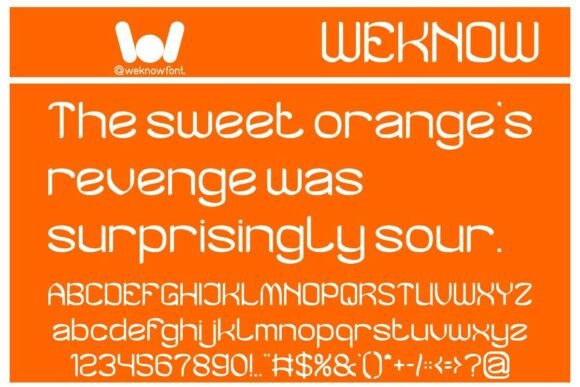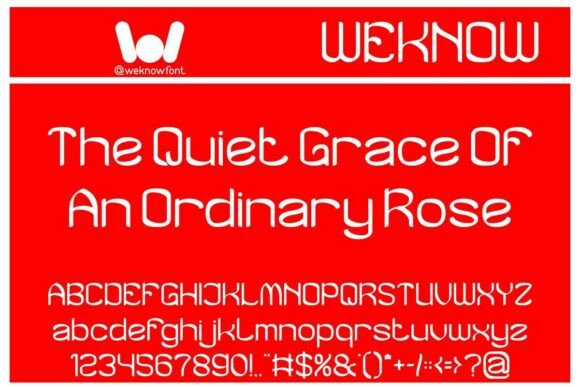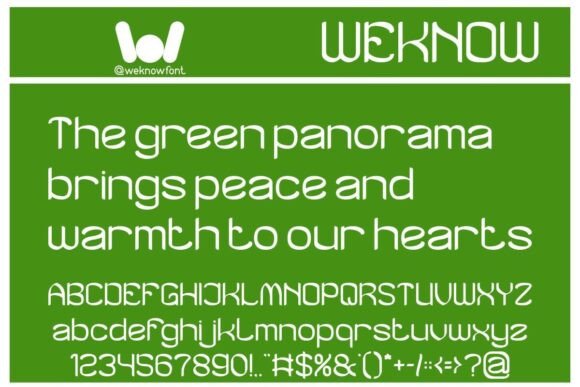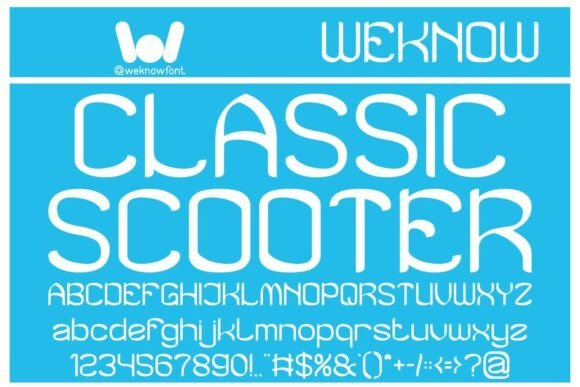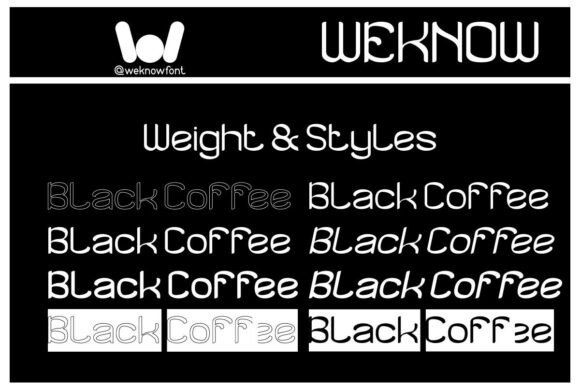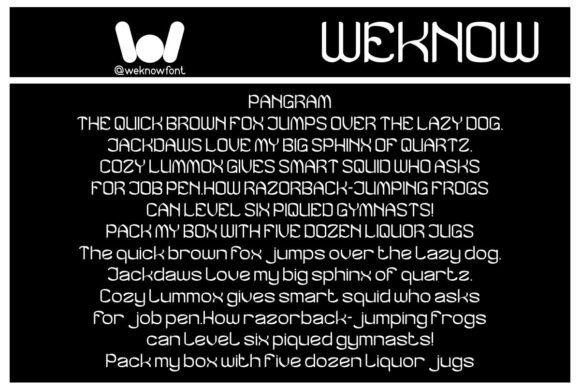
Introducing Black Coffee: The Ultimate Multi-Faceted Monoline Font
Are you tired of using the same old fonts for your designs? Look no further than Black Coffee, a game-changing monoline font that combines playful whimsy with stylish sophistication. This eclectic font is perfect for designers and crafters looking to add a touch of modernity to their work.
A Unique Blend of Geometry and Whimsy
Black Coffee boasts a seamless unison of geometric precision and casual rounded terminals, making it a standout in the world of typography. Its multi-faceted design allows it to adapt to a variety of themes and styles, from trendy Instagram posts to bold posters and graphics. Whether you’re working on a corporate branding project or a personal creative endeavor, Black Coffee is sure to make a statement.
The Perfect Font for Eye-Catching Logos and Headlines
One of the key features of Black Coffee is its unique looped display ergonomics, making it an ideal choice for creating eye-catching logos and defining headlines. The font’s geometric precision and bold lines ensure that your message will stand out, while its playful rounded terminals add a touch of approachability and friendliness.
Black Coffee’s versatility is one of its greatest strengths. This font can effortlessly adapt to a wide range of themes and styles, making it perfect for various design applications. Here are just a few examples of how you can use Black Coffee:
- Instagram and Social Media: Add a trendy vibe to your Instagram posts and stories with Black Coffee’s modern and sleek design.
- Posters and Graphics: Make a bold statement with Black Coffee’s geometric precision and bold lines, perfect for posters, flyers, and other graphic designs.
- Music and Movie Graphics: Add a touch of sophistication and glamour to your music and movie graphics with Black Coffee’s stylish and modern design.
- Magazine Layouts and Book Designs: Bring a touch of modernity to your magazine layouts and book designs with Black Coffee’s clean lines and elegant design.
- Comic Strips and Illustrations: Add a playful and whimsical touch to your comic strips and illustrations with Black Coffee’s rounded terminals and bold lines.
Why Choose Black Coffee?
So why choose Black Coffee over other fonts? Here are just a few reasons:
- Unique Design: Black Coffee’s looped display ergonomics and geometric precision make it a standout in the world of typography.
- Versatility: Black Coffee can adapt to a wide range of themes and styles, making it perfect for various design applications.
- Modern and Sophisticated: Black Coffee’s sleek and modern design adds a touch of sophistication and glamour to any design.
In conclusion, Black Coffee is a game-changing monoline font that combines playful whimsy with stylish sophistication. Its unique design, versatility, and modern aesthetic make it an ideal choice for designers and crafters looking to add a touch of modernity to their work. Whether you’re working on a corporate branding project or a personal creative endeavor, Black Coffee is sure to stir up an aesthetic buzz.